If you’re looking for modern fonts for your project, we have the look you’re hunting for. From simple to minimalist fonts, this pack has an array of fresh typefaces for you. You can choose the brush stroke that speaks your style.
The 31 choices in this pack give you the freedom to design a strong headline. With these fonts, you can present words as visual art.
With these typefaces, your headers and logos stand out from the crowd. Here are the wonderful qualities of this pack:
- Modern fonts for websites that are hand-drawn in script style, perfect for display contemporary designs made with visual impact in mind
- First-class and 100% legible
1. Rustling Trees
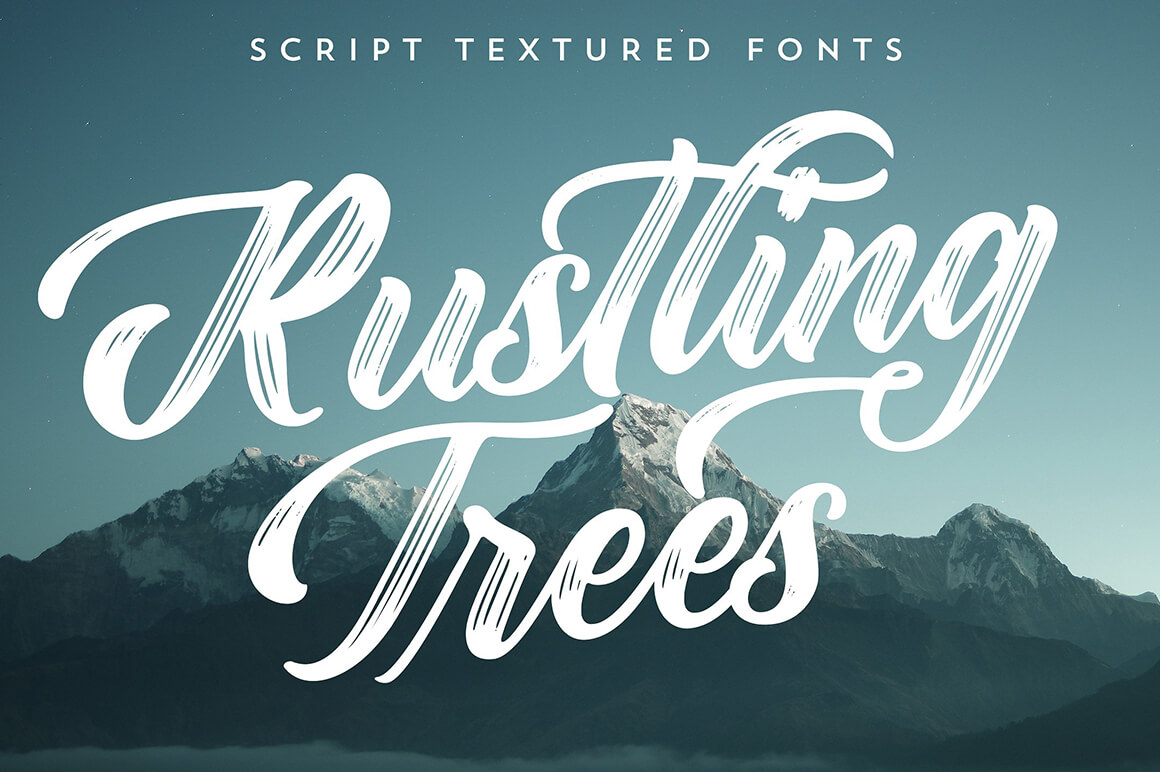
This fresh script textured font was born in collaboration with Albion Room.
The modern and clean style of this font is perfect for large-sizes text. As a designer, this choice works well with titles, logos, digital art, brands, and signs.
2. Almost Lover
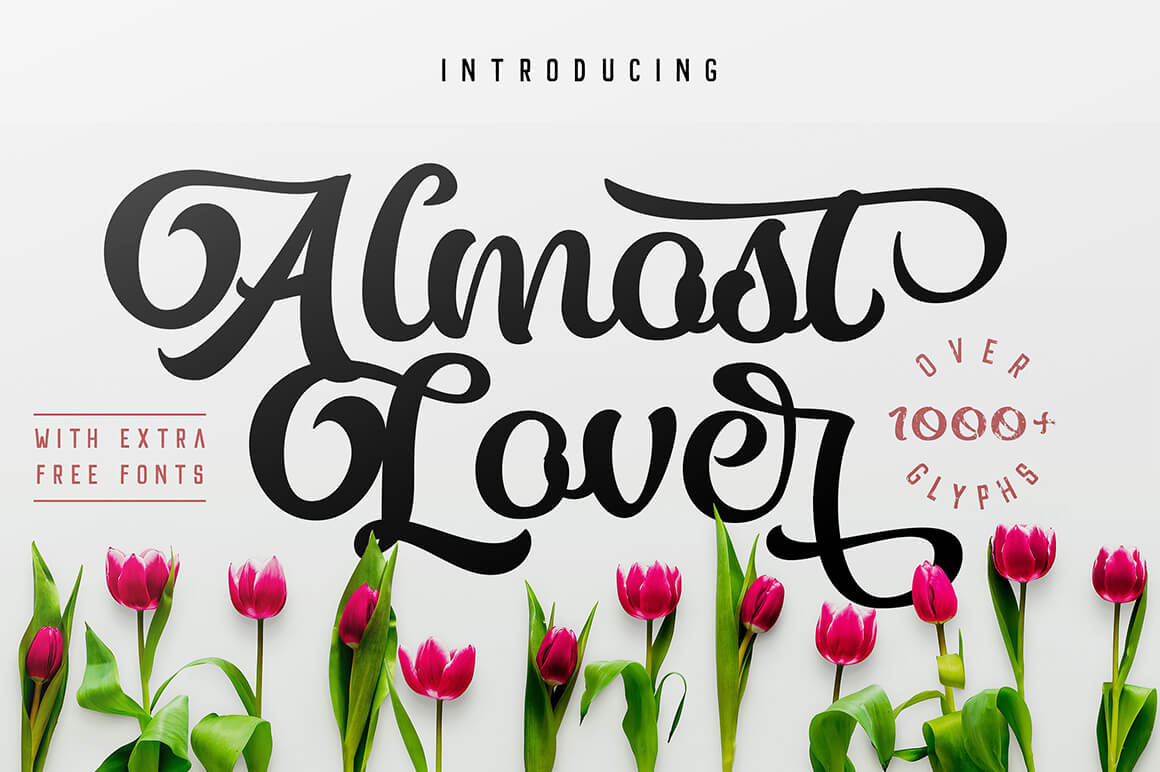
This style has a unisex contemporary feel. It’s a beautiful font inspired by handwriting. The Almost Lover script offers variations of 1000+ Glyphs. Some letters even have 25 unique styles. It has many features. With the Titling Alternates feature, the uppercase text looks amazing. For detailed work on price menus, you can use Tabular Lining.
The beauty of this font is that it can work with almost anything. It can create strong headlines, website logos, floral wedding invitations, and book covers.
3. Sevastian Layered Typefaces
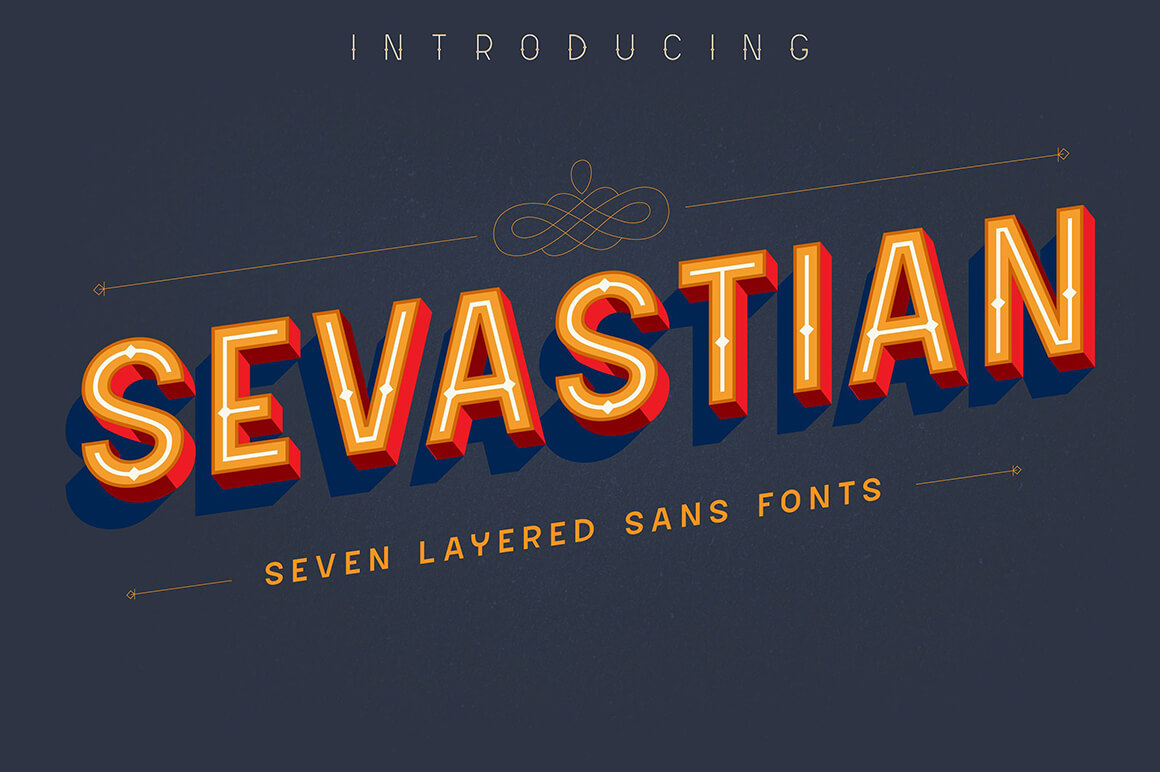
The Sevastian font has a huge WOW factor. This is the signature modern style of artists who have limited tools in making signs. This typeface uses shadowing to achieve a 3D perspective with a 2D text.
You can create 3D art without using special effects. The Sevastian style is wonderful for many combinations and layers. You can also experiment with different colors.
4. Mallory Script: Modern Calligraphy Font
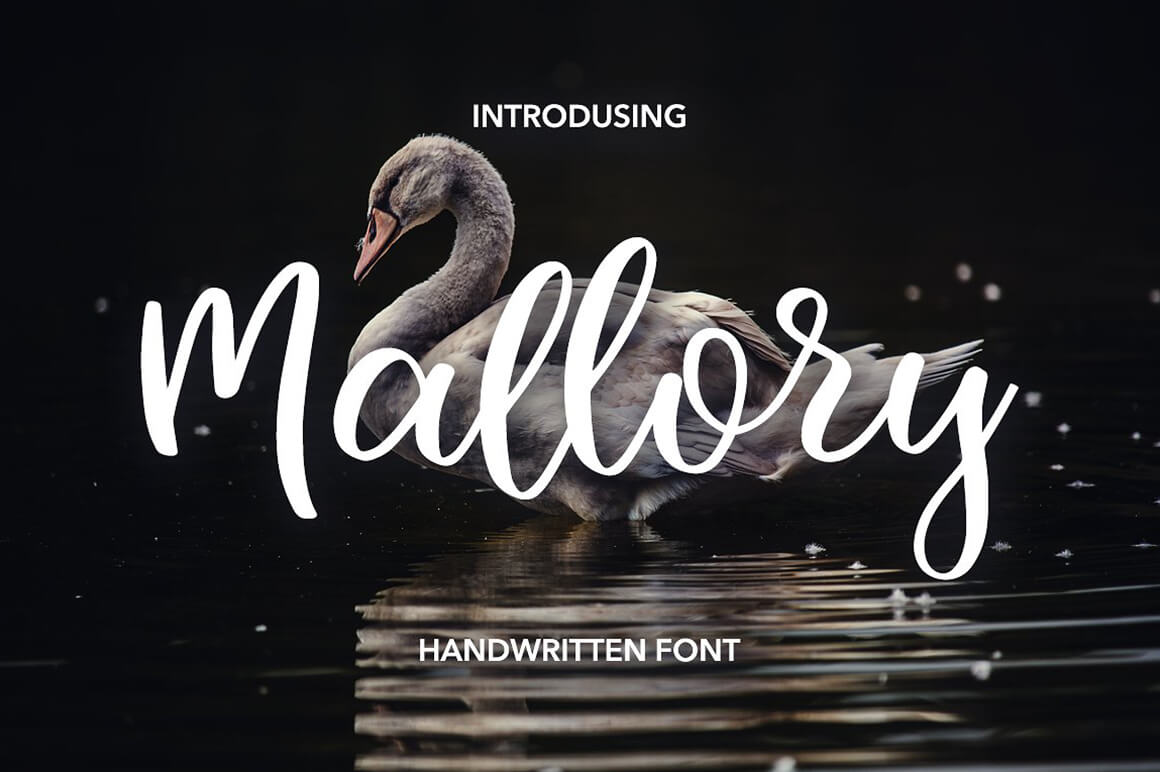
Mallory Script is a delicate handwritten font. It adds a homemade touch to anything that you design with it. This contemporary style is terrific for quotes and greeting cards. Branding materials, posters, and modern business cards look unique with this font.
This style comes with extra features. It has PUA Unicode, which allows full use of the bonus characters. Windows designers can view the character map. This helps designers copy and paste extra characters onto a text editor. The Font Book is also available for Mac users. For people who use OpenType-capable programs, the alternates are also available. You can view this through the “Stylistic Alternates” and “Ligatures”. These buttons are on Photoshop’s Character panel.
5. Pathfinder
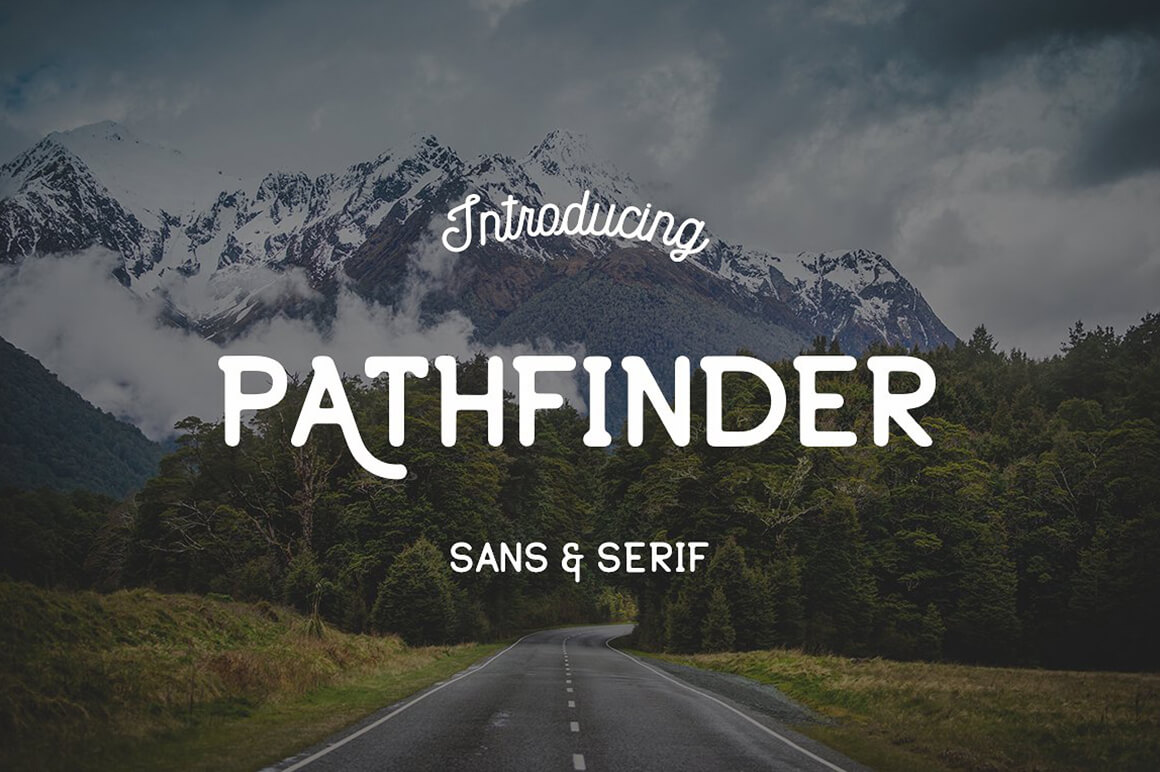
This font is pleasing to the eye. The Pathfinder font immediately catches your attention. The style has rounded corners. This modern font looks good in logos, visual art, inspirational & catchy quotes, and signs. It comes in sans, serif, and other alternates.
6. Filson
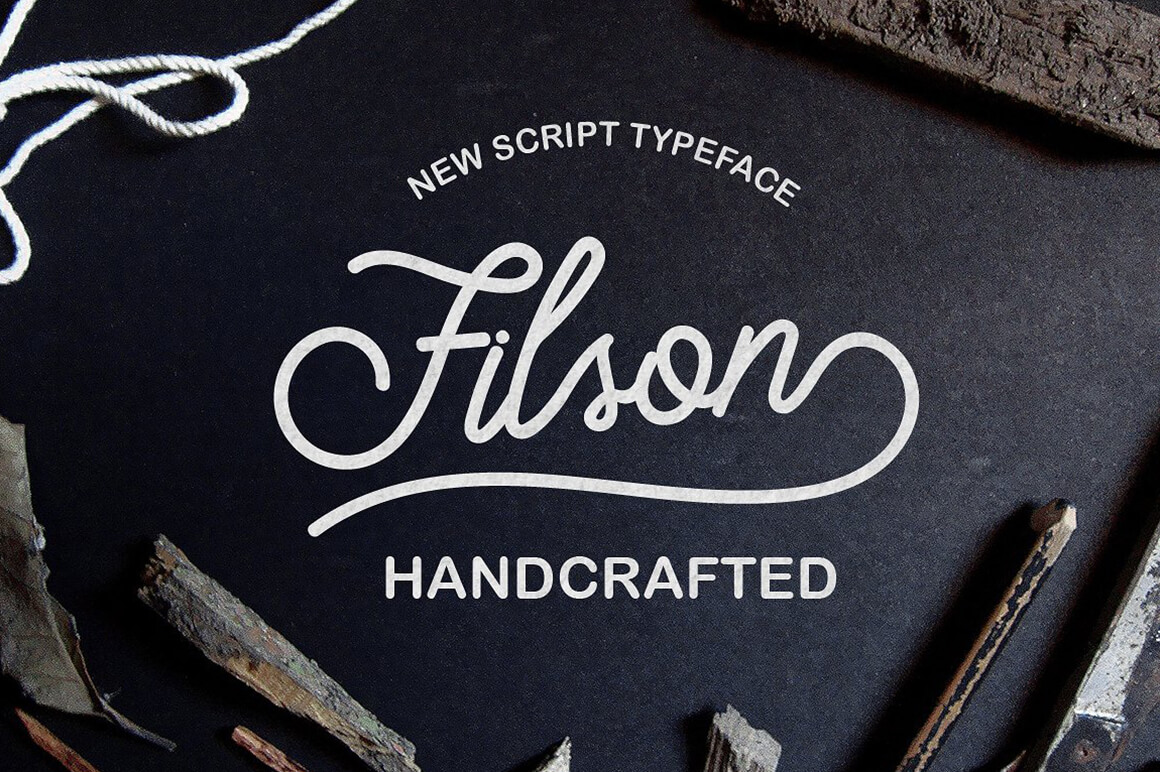
If you need a hand-drawn font that looks new and playful, you can use Filson. The style is a perfect complement to almost all designs. Clothing looks elegant. Magazine headers are timeless. Logos appear expensive. And there are six bonus fishermen drawings that you can use.
7. Dexsar Brush
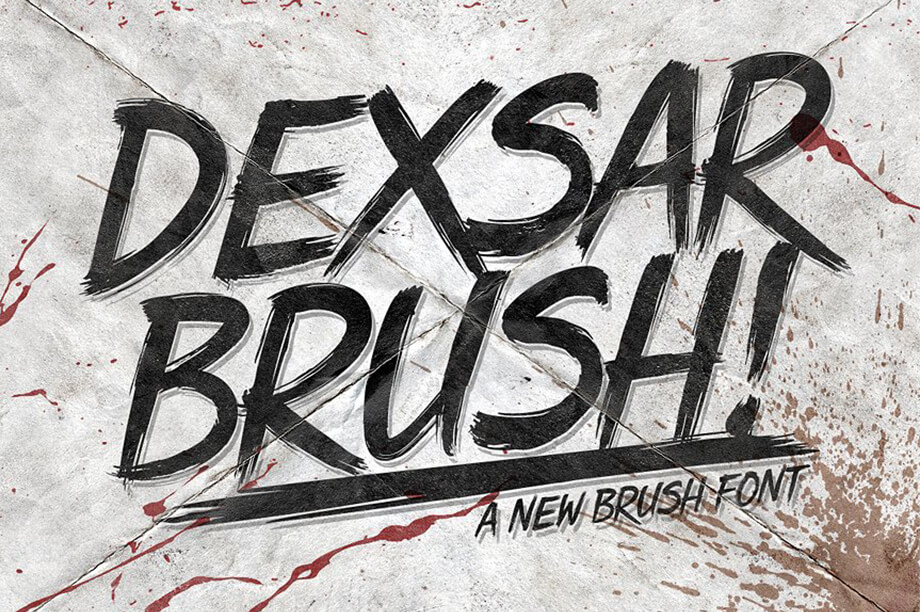
This is a great high-detailed brush font. It has bold and solid strokes. It comes with 240 glyphs and an OpenType feature you can use to customize your designs. Dexsar Brush is a fantastic style. It’s great for amazing t-shirts, intense posters, and creating striking logos.
8.Roverd: Modern Script Font
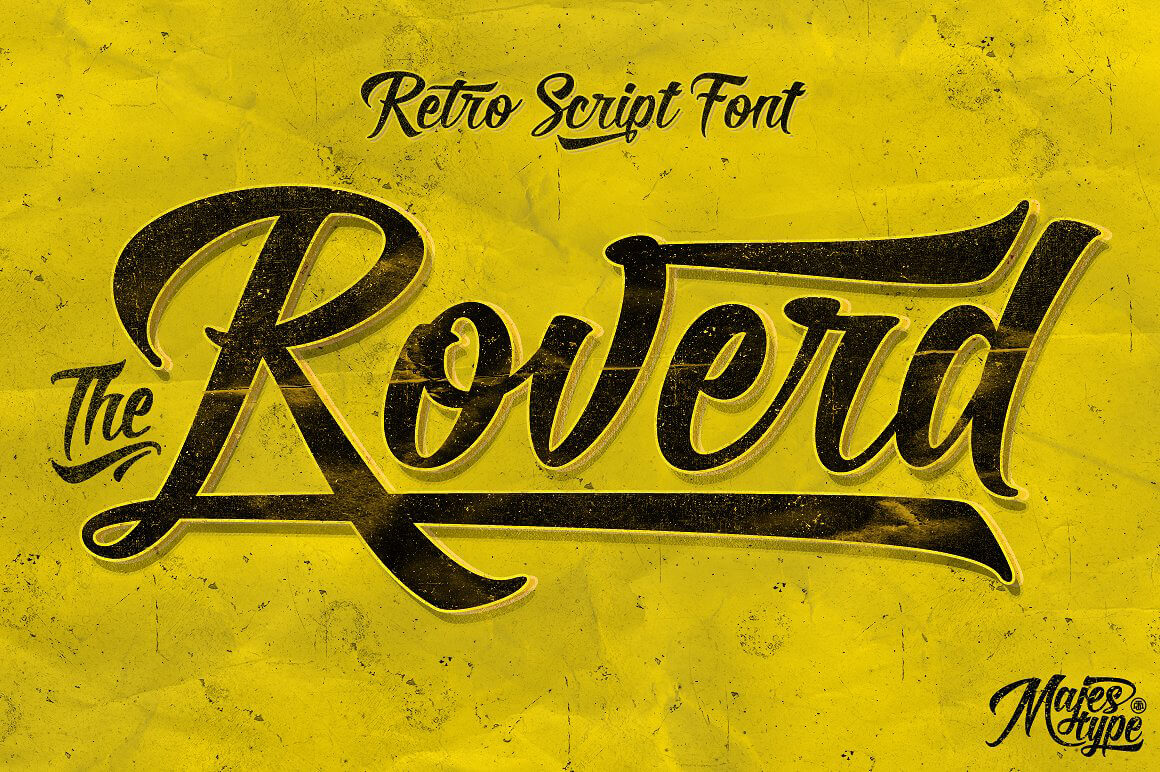
Roverd is a perfect example of visual font art. It’s chic and contemporary at the same time. Roverd is a Script Brush Retro font. It features 700 Glyphs and an OpenType feature. This beautiful font is perfect for word art. It shines, especially in logos and headlines.
9. Baksoda
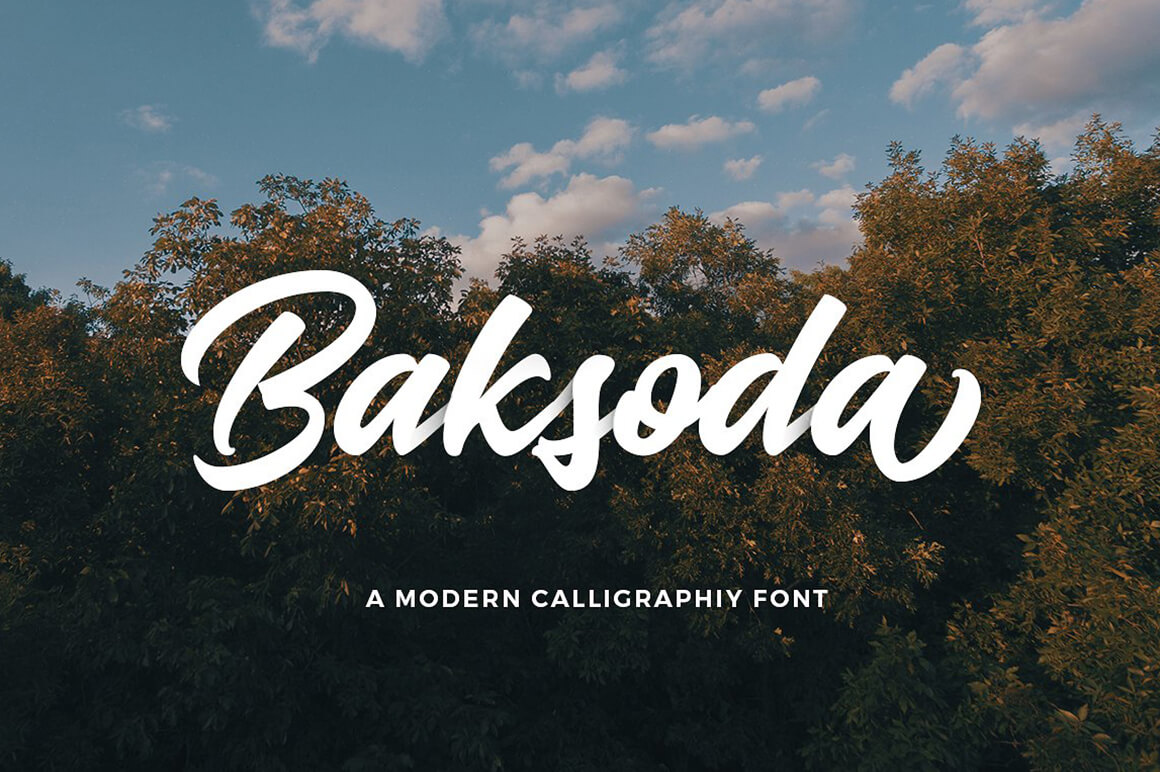
If you want drama and clarity, Baksoda is the perfect font to use. The style is terrific in sending a strong brand message. It’s appealing to use in logos, headlines, and promos.
10. Southbeach
The Southbeach style has a universal and timeless design. This hand-lettering brush font uses classic paint-stripped typography. Southbeach immediately engages you no matter what you use it for. It’s beautiful for product labels, houseware and text overlay to any picture.
11. Austten
Austten is a strong and elegant modern cursive font. If you choose to express your ideas with this style, you’re making a bold statement. This is a wonderful typeface for sports apparel, brand messaging, and grand quotes.
12. Spoodbrush
The Spoodbrush font is a feminine and cute design. This is a light and happy typeface to match pictures with. With Spoodbrush, you can add a personal handwritten effect. It’s great for posters, logos, and greeting cards.
13. Helena
Helena is almost a minimalist design. It has clear and strong pen strokes with a beautiful solid touch. This is a great font for headlines, stationeries, and body text.
14. Brown Fox: Clean Modern Fonts
Brown Fox is a wonderful country style font. It has a childlike writing and lovely typeface. It has a calming design perfect for doodling, handwritten notes, and quotes.
15. Fun Bang Modern Fonts
Fun Bang comes with a funky geometric design. It has so much appeal in many aspects. Fun Bang is perfect for kid-themed projects. It is also graphic-friendly and artistic.
16. Raisia Script Font
The Raisia modern script font is a very relaxed and sweet typeface. The style is handwritten and quite modern at the same time. Raisia Script looks beautiful on clothing, paper bags, and especially headlines.
17. Neoscopic Brush Typeface
This wonderful font is a solemn and cool typeface. The Neoscopic Brush Typeface is perfect for nature photographs, and handwritten quotes.
18. The Nordlike
The Nordlike typeface is a graffiti style font. It looks handwritten by an artist. It can do wonders on food pictures. The Nordlike font creates a powerful message with your logos and headlines.
19. Malanya Typeface: Modern Cursive Font
Malanya is a soft and ladylike font. It creates a beautiful structure in handwritten recipes. Malanya is also amazing when matched with scenic nature photography.
20. Inversus Modern Fonts
Inversus is a comic font with a dash of humor. This typeface has a cartoonish effect that creates a nice combination of quotes. Inversus adds character on pillows, graphic t-shirts, and headlines.
21. Harmonie Script
This masculine font uses copperplate beautiful calligraphy fonts. It has a direct and progressive style. Harmonie script is perfect for wedding invitations, elegant headlines, and stationeries.
22. Mates Malty Modern Fonts
Mates Malty was born from different textures using ink pens, markers, and paintbrushes.
This font is wonderful for party greetings, headlines, and striking logos.
23. Peinture Modern Fonts
Peinture, one the most clean modern fonts, is a font with a watercolor effect. This handmade style is a perfect match for visual word art, clothing line labels, and logos.
24. Bellanie Script
Bellanie Script has a homey and artsy feel. It’s very beautiful on greeting cards, logos, and pretty quotes. It has 384 glyphs, alternate characters and a multitude of OpenType features.
25. Little Mess Modern Fonts
Little Mess, one of the best modern fonts, is a style designed with a calligraphic pen using an unrefined texture. It features multilingual support and several ligatures. This is an amazing font for scribbles, delightful quotes and personalized handwritten notes.
26. Mosaic Pool Typeface
This font is both vintage and modern at the same time. It has a cool and pop vibe. You can use three font layers, which makes it easier to edit and recolor. The patterns on the Mosaic Pool Typeface are amazing for funky logos and fun headlines.
27. Fiver 5
Fiver 5 has a smooth rainbow effect. This modern font has beautiful color gradients. It has five fonts with varying line variations. The design is in vector EPS format. Fiver 5 also has two posters with lettering quotes. This font is perfect for artistic expression. Fiver 5 is best in unique headlines, standout logos, and distinct posters.
28. Ranch Vintage Font
Ranch Vintage Font gives a cozy and comfortable effect. This is a warm vintage textured typeface. It has four font styles for easy mixing and simple combining. It also comes with a cute hand-drawn illustration of trees, a house, and a windmill. This looks beautiful on product labels, food packaging, and country-style menus.
29. Limber Script & Mockups
Limber Script and Mockups are amazing for large text. The font has visual clarity and solid calligraphy. Limber looks professional and contemporary in big posters, supersize quotes, and prominent logos. It offers 4 excellent quality renders of innovative interior mockups.
30. Megawatt Modern Fonts
The Megawatt font, one of the best modern fonts has an electric and shiny quality to it. This calligraphic design is hip, young, and elegant. It brings a smooth rhythm to an album cover, presentation, and party invitations.
31. Firdaus Script
This modern calligraphy font has a fresh and timeless vibe. The Firdaus script has a wide appeal in various projects. It can work on all seasons, like summer and autumn. The Firdaus script does wonders for headlines, promotional posters, product labels, and romantic quotes.